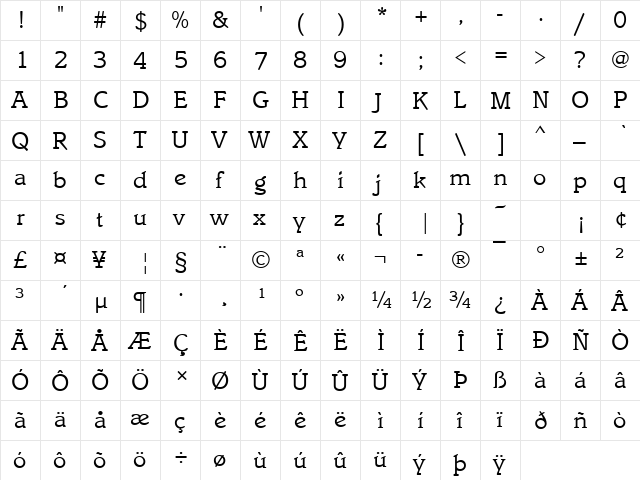
URWIschtarT Regular
Design Context for URWIschtarT Typeface
URWIschtarT offers clean, dependable letterforms without strong stylistic allegiance, making it a practical choice for designers who need flexibility.